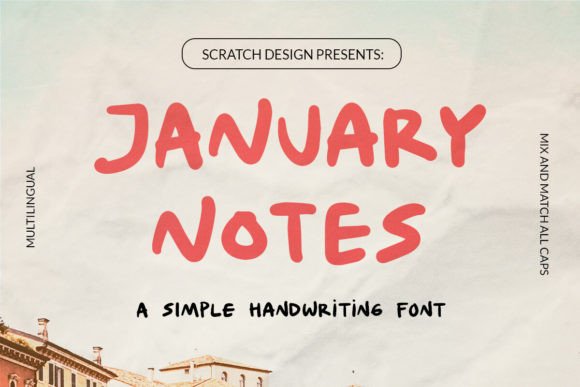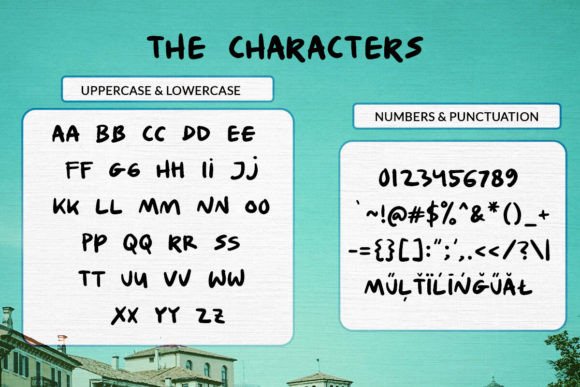
January Notes Font
Introducing January Notes, your go-to font for simple yet stylish handwriting. This font has a simple, doodle and sweet character. Resembling a marker brush or bold ballpoint, it’s perfect for notes and journaling. This font will be perfect for posters, logos, branding, websites, quotes, notes, and other designs that need a doodle character.